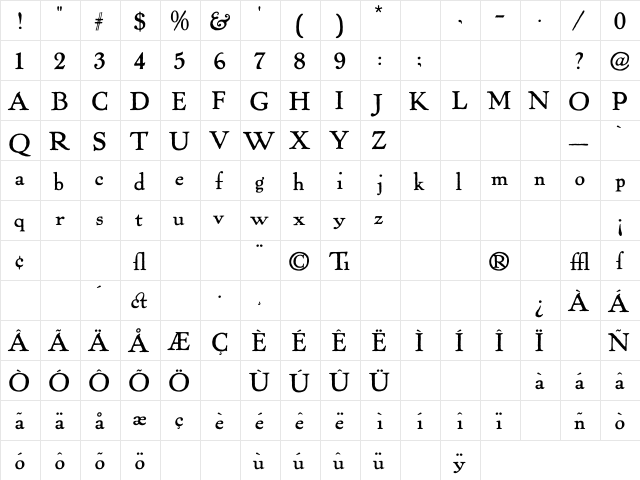
VTPabstOldstyle Roman
Design Context for VTPabstOldstyle Typeface
VTPabstOldstyle brings classic typographic sensibility to the table — its serifs and measured letterforms reflect centuries of print heritage.
Pro Tip: Set VTPabstOldstyle with slightly loose tracking in headlines to let each letterform's detail read clearly at display sizes.